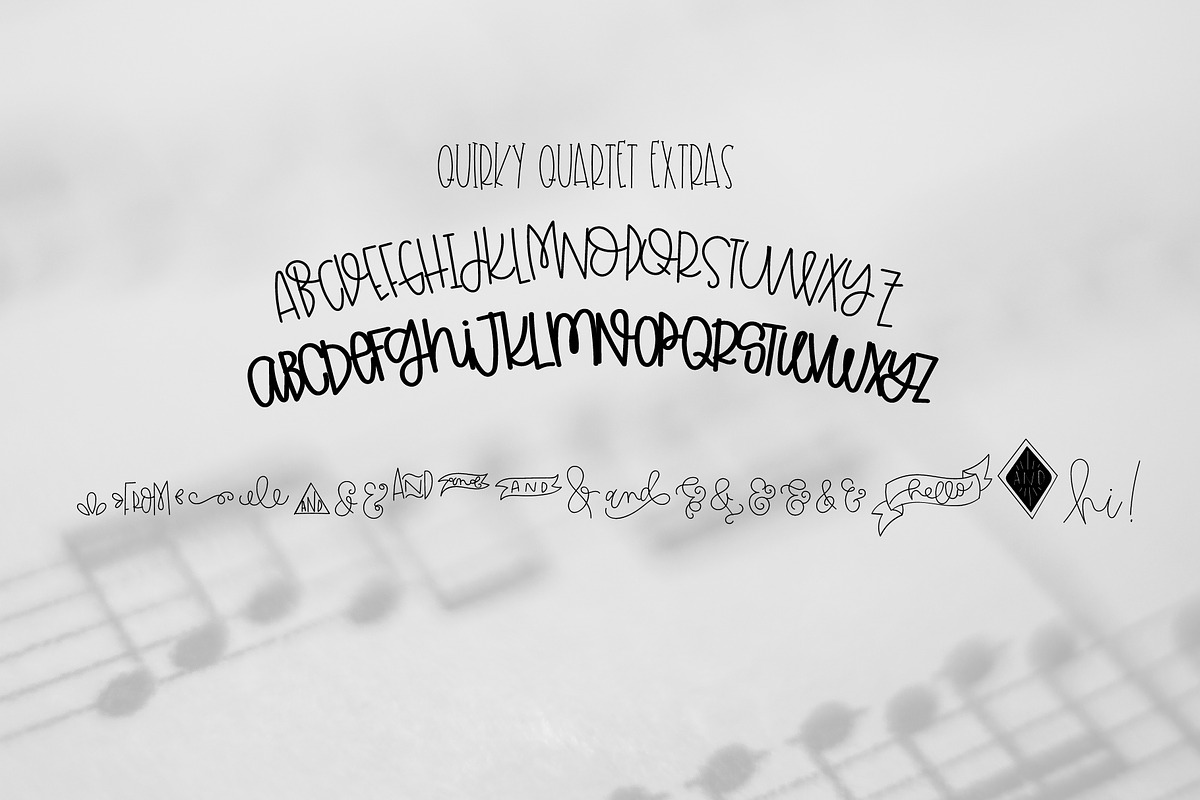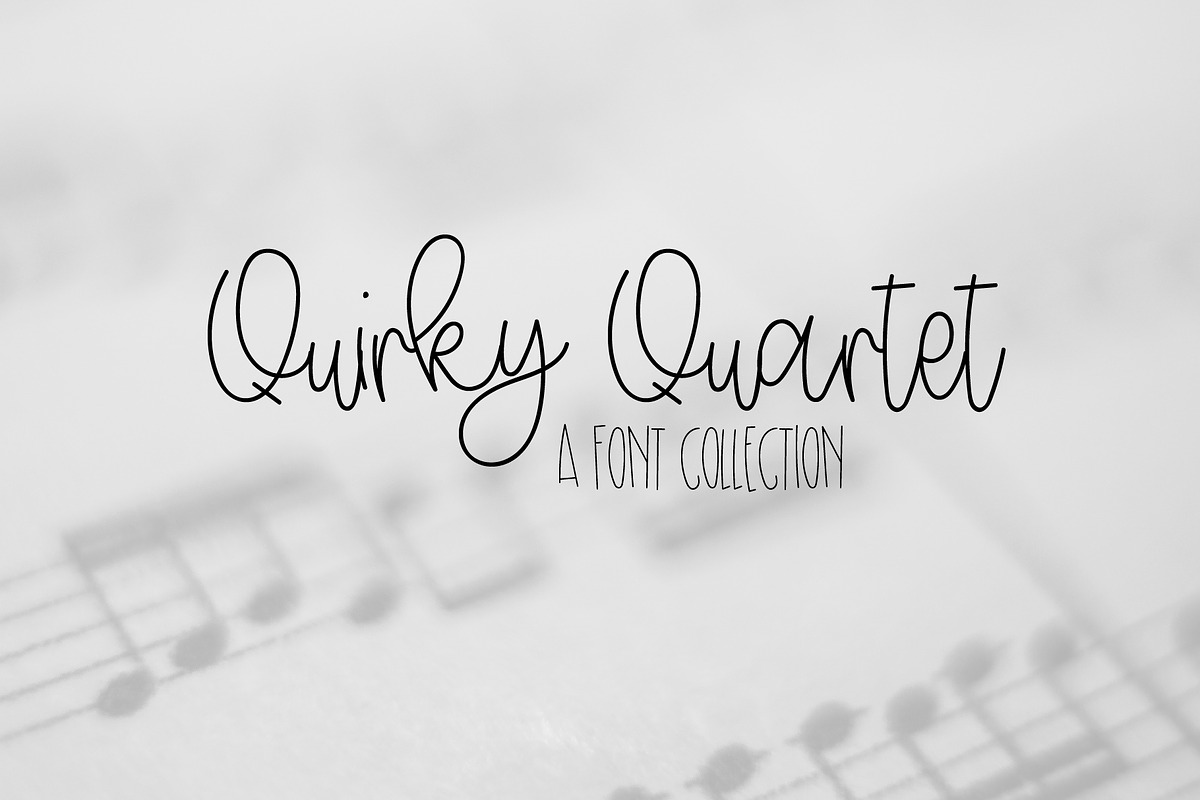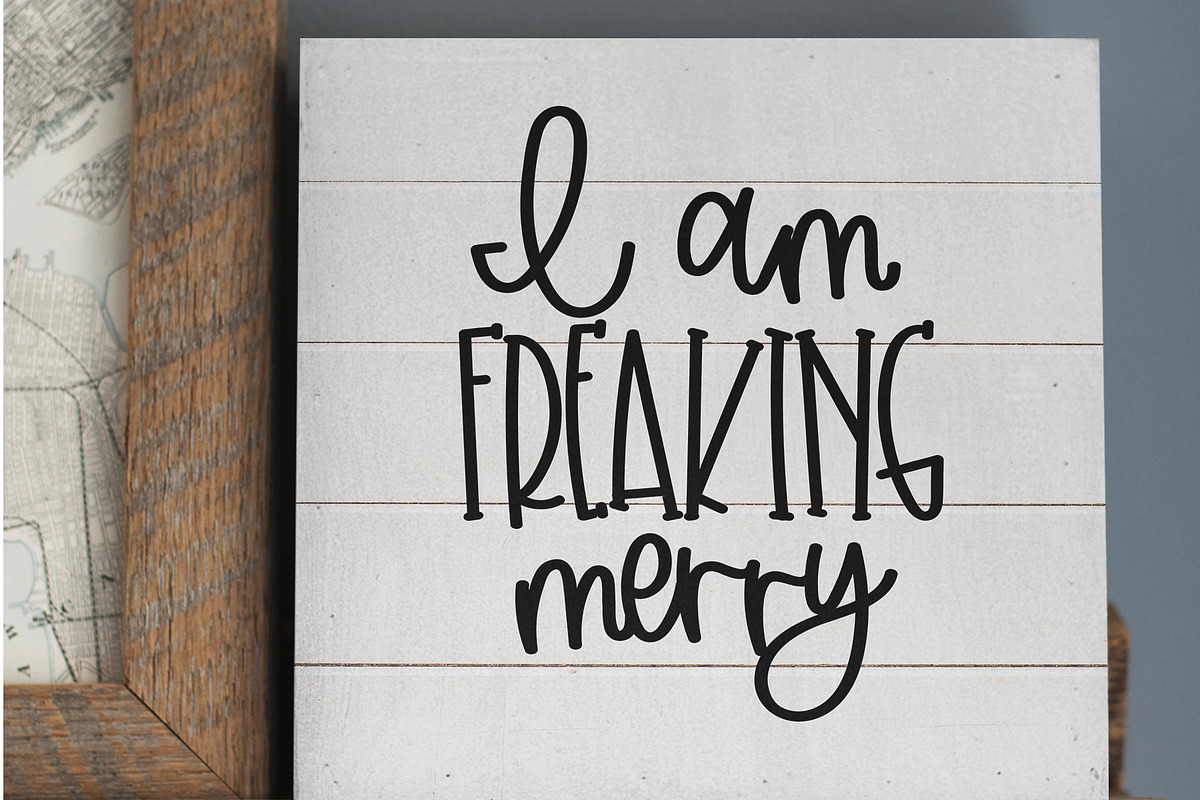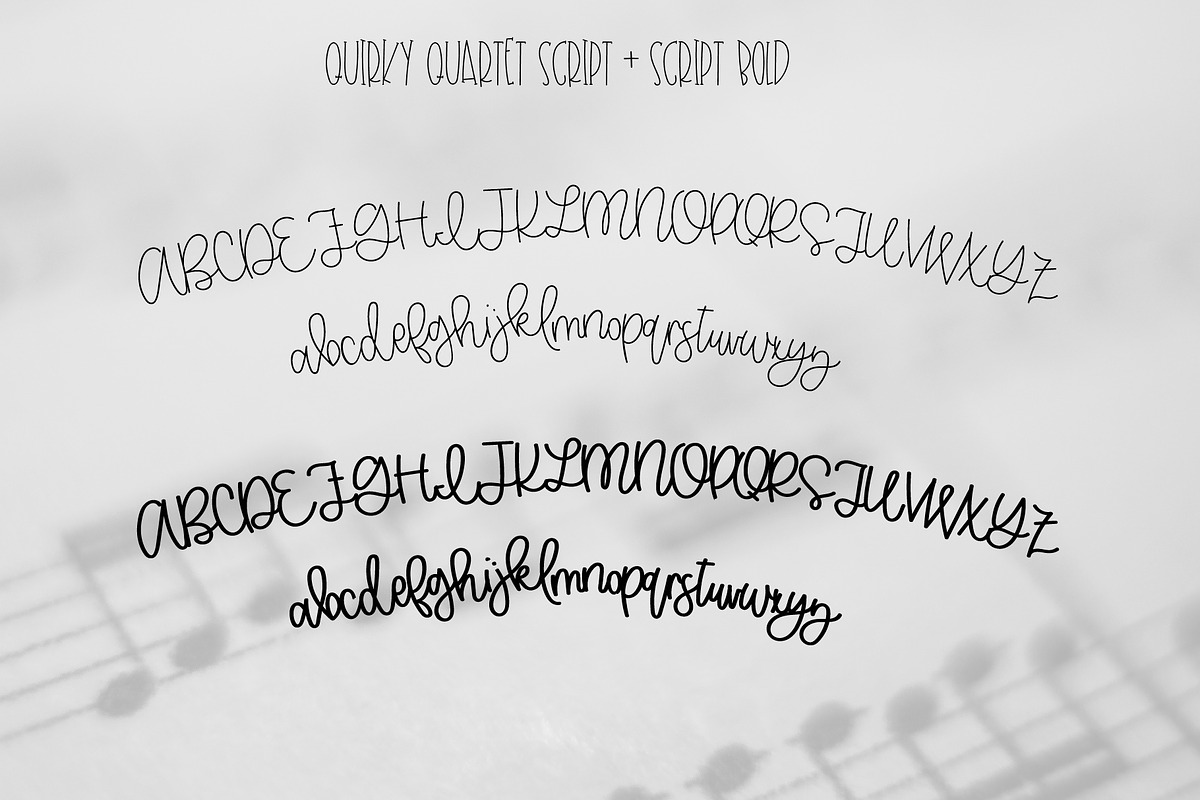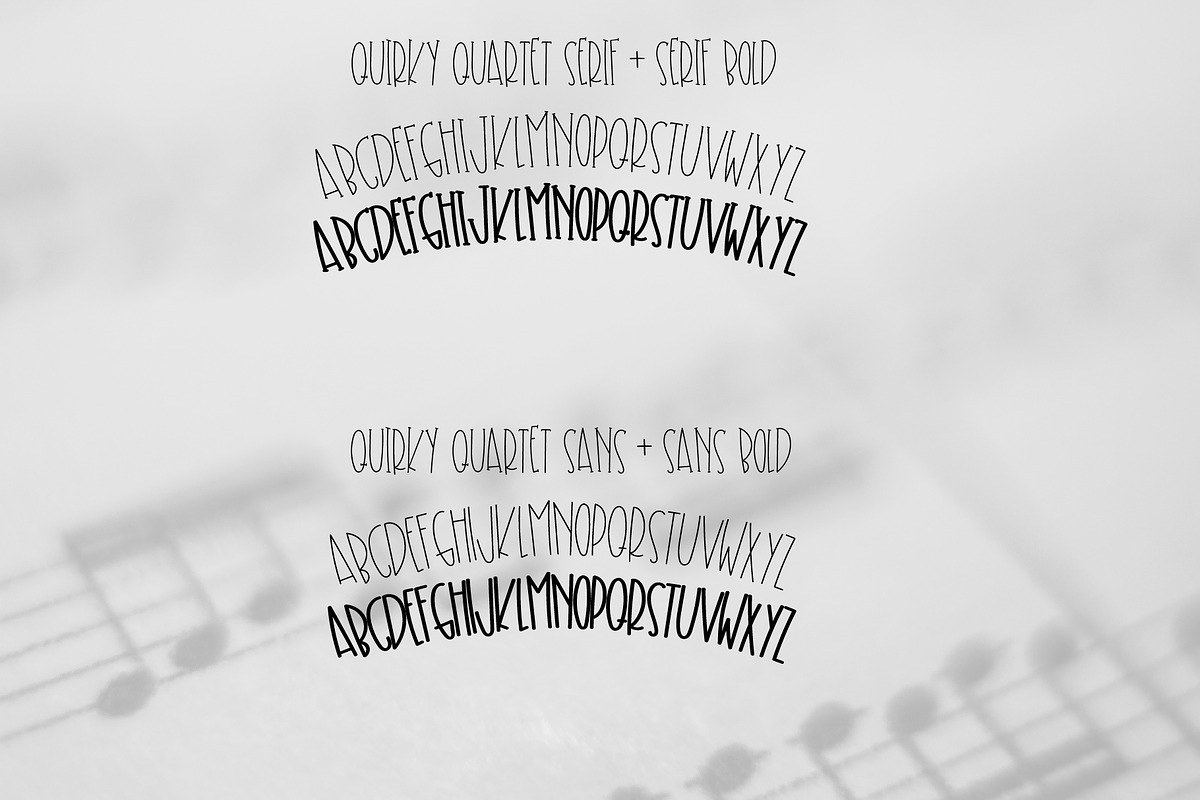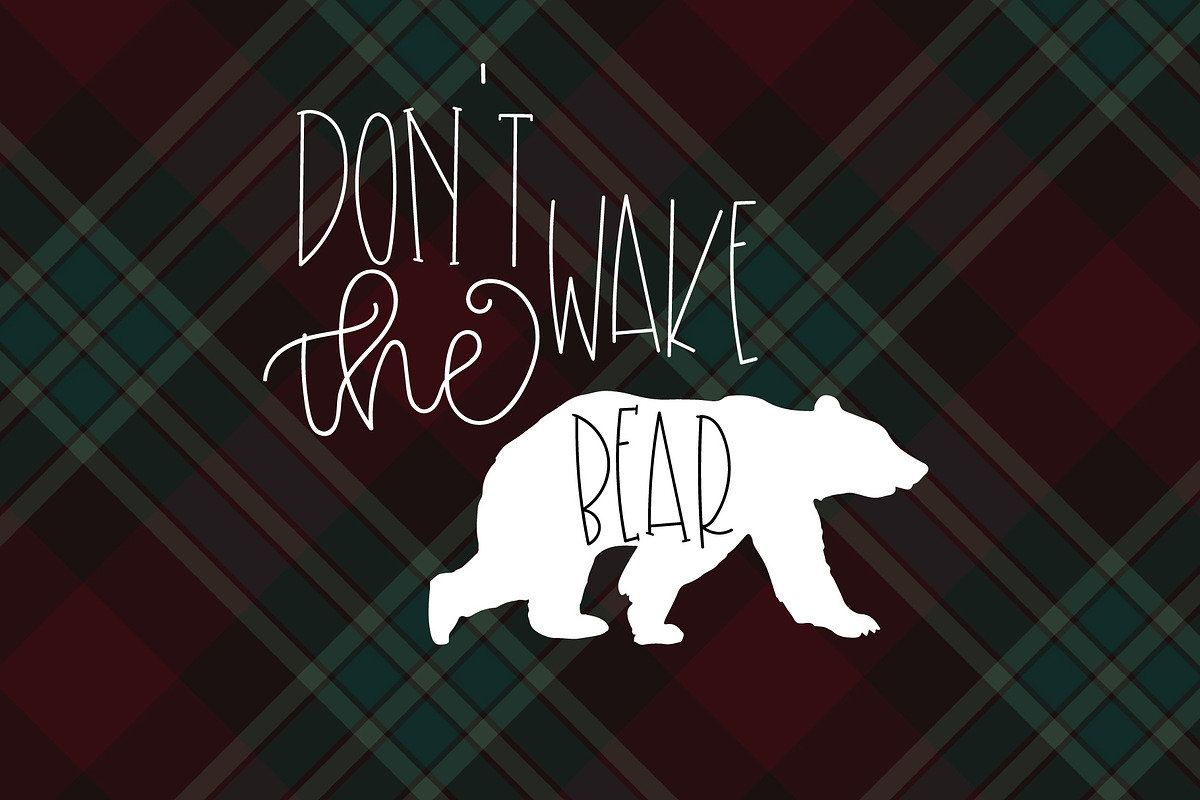
Quirky Quartet - Font Collection
- Perfect for your fun and quirky designs, Quirky Quartet font collection includes 4 fonts plus extras!
- Features -Script includes double letter and alternate ligatures -Numbers -Punctuation -Accented Characters Serif Includes -All caps with bon
Quirky Quartet - Font Collection by OnTheSpotStudio fits naturally into Branding, posters, packaging, typography.